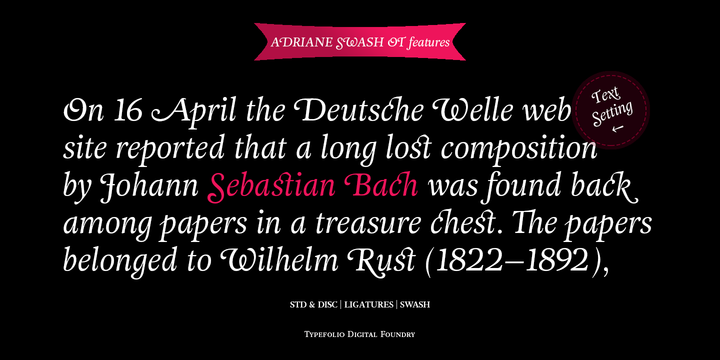
[Serif] Adriane Swash Việt hóa
Thông tin về font Adriane Swash
The Swash version of Adriane Text features the best characteristics of this lineage, without losing the strong personality and elegant design featuring in your text styles, Adriane Swash brings a fancy look to this classic style. The family comes with a complete character set in Uppercase, Lowercase and Small Caps, and the Swash option can be activated through the OpenType features panel, including glyphs initial, intermediate and final, plus a wide range of stylistic ligatures, alternate glyphs, ornaments and languages.
Designers: Marconi Lima
Design date: 2013
Publisher: Typefolio